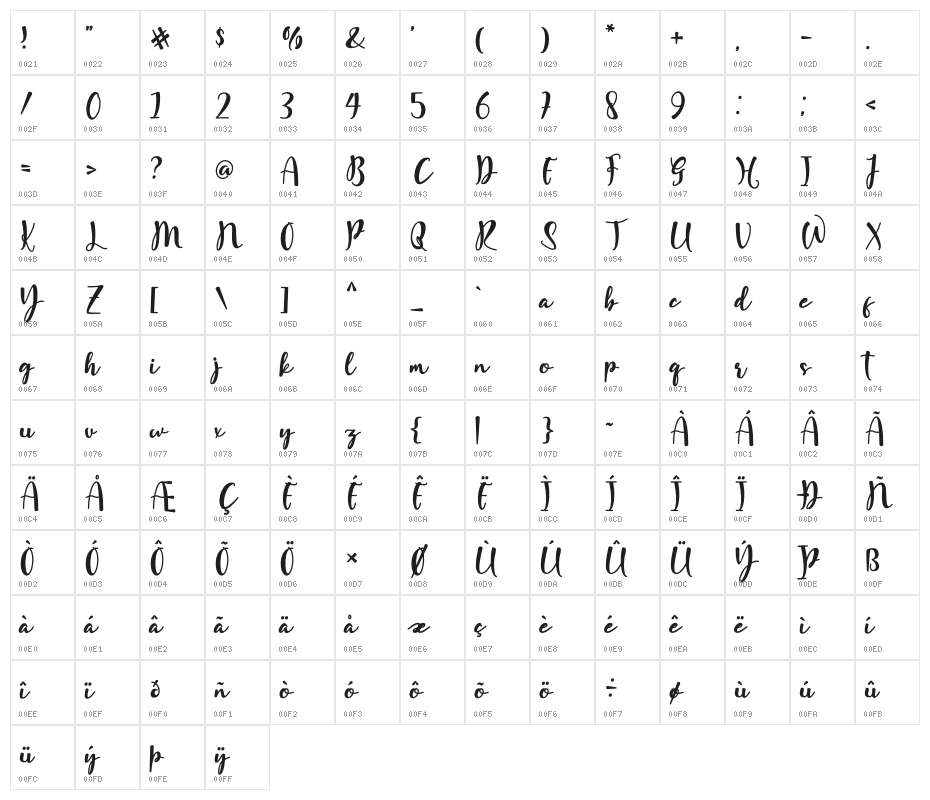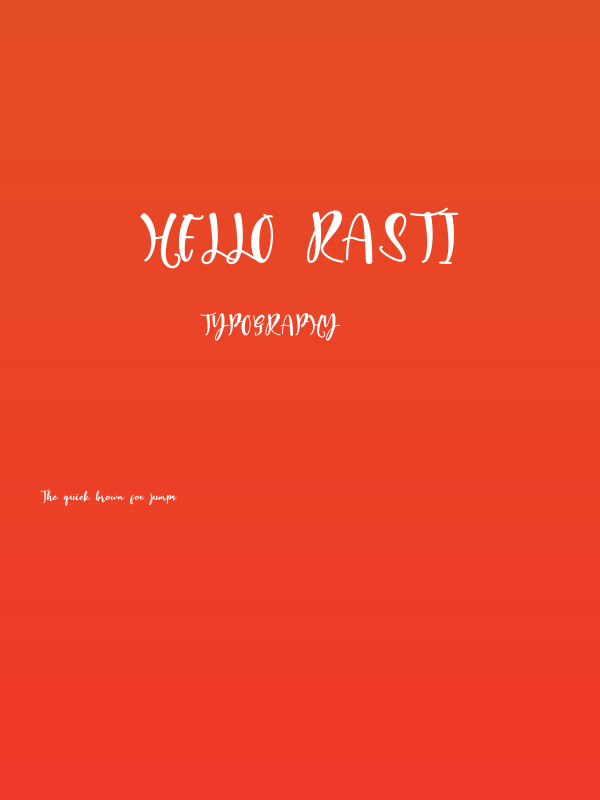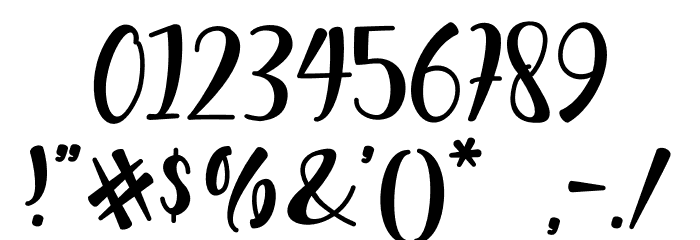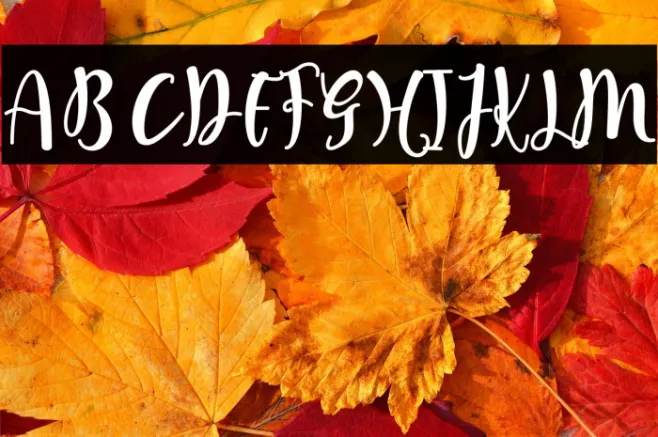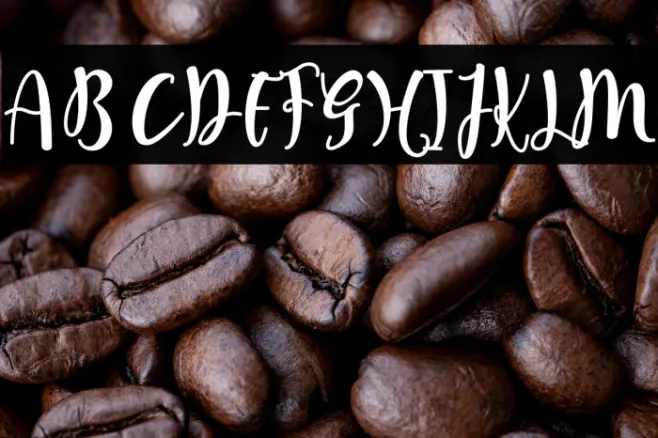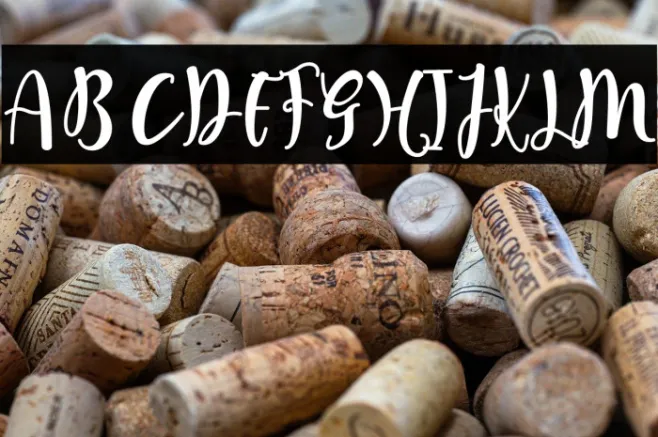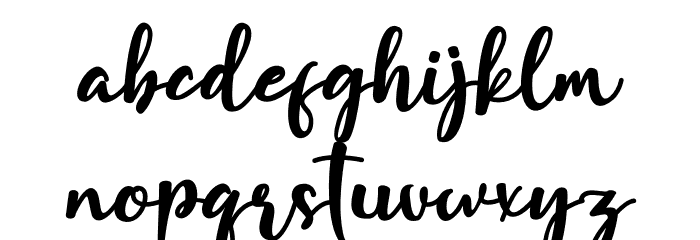
Hello Rasti Font
Hello Rasti Description
This font features a playful and dynamic script style with a handwritten appearance. The letters are characterized by smooth, flowing curves and varying stroke widths, giving it a lively and energetic feel. The uppercase letters are bold and prominent, while the lowercase letters maintain a consistent fluidity, enhancing readability. The numbers and special characters complement the alphabet with a similar whimsical style. This font's unique personality makes it suitable for creative and informal projects.